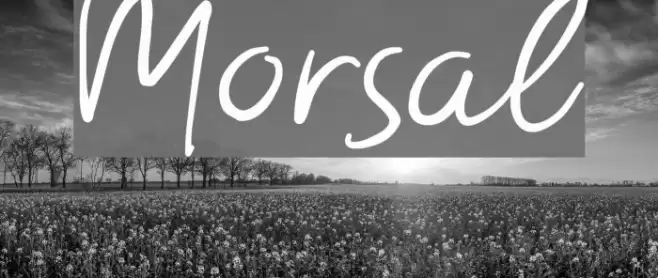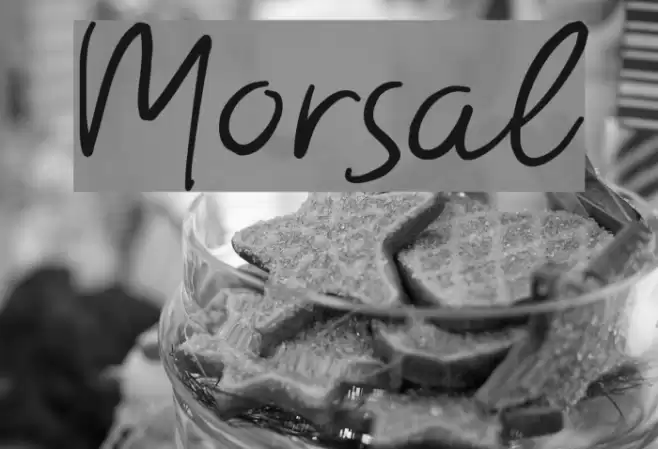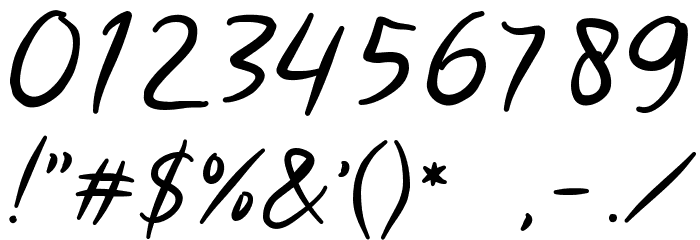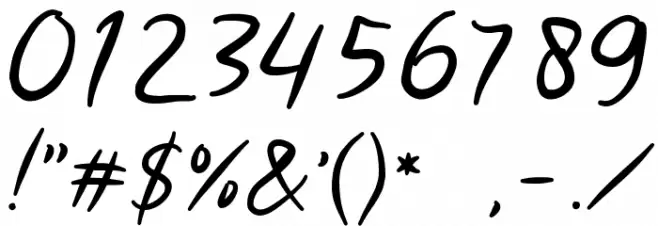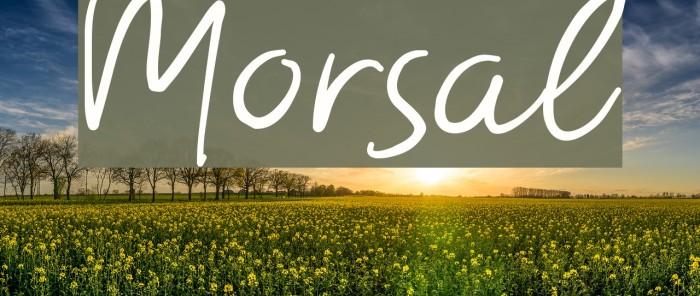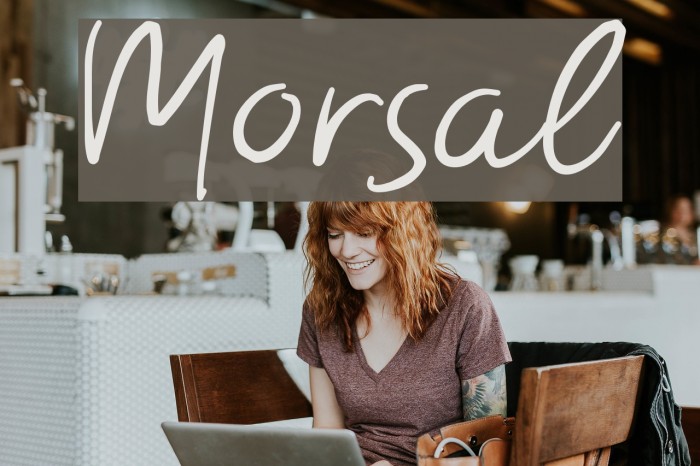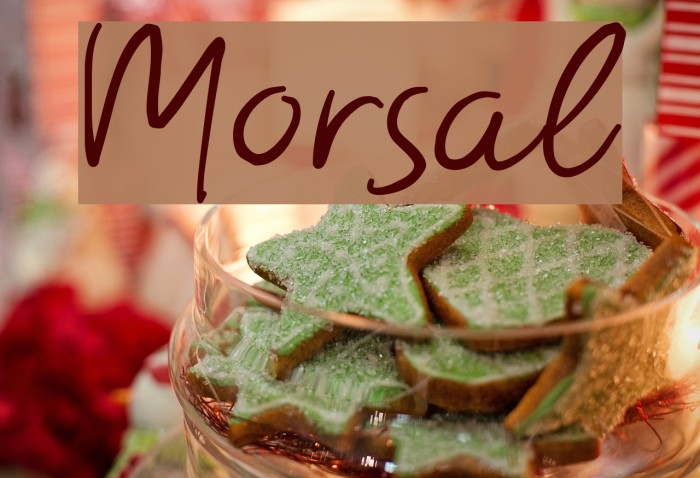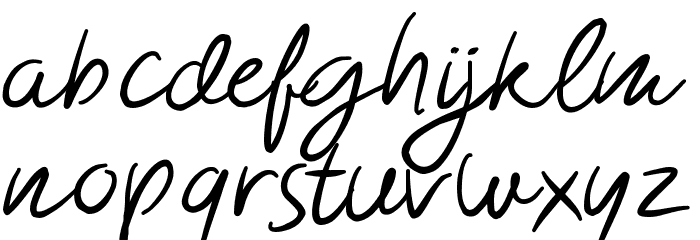
Morsal Font
Morsal Description
This font features a dynamic and fluid handwritten style, characterized by its casual and informal appearance. The letters are slightly slanted, giving a sense of motion and energy. The strokes vary in thickness, providing a natural and organic feel. Uppercase letters are bold and prominent, while lowercase letters maintain a consistent flow, enhancing readability. The numbers are clear and distinct, matching the overall aesthetic. Special characters are integrated seamlessly, maintaining the font's cohesive look. This font exudes a personal touch, ideal for projects that require a human element.
A dynamic, fluid handwritten font with a casual and informal style from Handwritten fonts.
- Proposed Projects: Ideal for personal branding, invitations, greeting cards, and creative projects that require a personal touch.
- Overall Style: Casual, Informal
- Use Case: Logos, Invitations, Greeting Cards